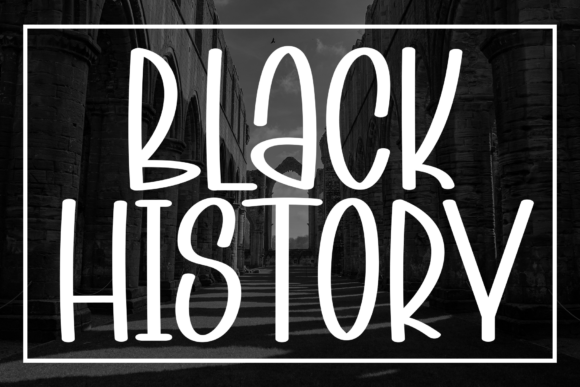
The Power of Typography: Honoring the Legacy of the Past with Black History Font
I’ll never forget the design project that made me fall in love with the Black History font. I was working on a commemorative exhibition for a local museum, and I was struggling to find the right typeface that would do justice to the story. The theme was powerful, the artwork was stunning, but the font I was using just didn’t feel right. It was then that I stumbled upon Black History, a poignant hand-drawn display font that captured the essence of heartfelt storytelling. ✨
A Font that Tells a Story
Black History is more than just a font – it’s a way to honor the legacy of the past. Designed to bring a soulful, human touch to commemorative and educational projects, this typeface features tall, slender letterforms with organic, rhythmic curves that evoke a sense of nostalgia and timelessness. Its high-impact “folk-chic” silhouette and “timeless-tribute” soul make it the perfect choice for museum exhibition branding, independent documentary titles, high-end editorial heritage features, and atmospheric “social-justice” social media headers.
So, what do I love about Black History? 🤔 Here are a few things that make this font stand out:
- ✨ Unique and distinctive letterforms that add a touch of elegance to any project
- ✅ High-impact and attention-grabbing, making it perfect for display purposes
- 💕 Emotionally resonant, with a soulful and human touch that adds depth to your design
Of course, no font is perfect, and Black History has a few quirks to be aware of:
- ⚠️ Limited use of lowercase letters, which may not be ideal for body text
- 🤔 Some users may find the font a bit too ornate or decorative for certain projects
The Story Behind Black History
Black History was designed with the intention of creating a font that would honor the legacy of the past. The designer, inspired by the stories of African American history and culture, sought to create a typeface that would capture the essence of heartfelt storytelling. The result is a font that’s both poignant and powerful, with a unique and distinctive character that’s sure to make your designs stand out.
- What is Black History font?
- Black History is a hand-drawn display font designed to honor the legacy of the past and capture the essence of heartfelt storytelling.
- What is Black History font used for?
- Black History is perfect for museum exhibition branding, independent documentary titles, high-end editorial heritage features, and atmospheric “social-justice” social media headers.